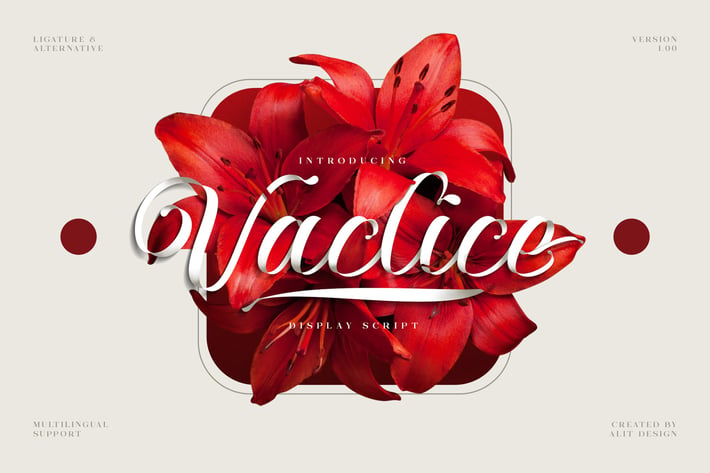
Vaclice Script Font
Vaclice Script Font is a very beautiful and unique signature script Font that comes with a very beautiful ligature surprise with different font characters so it is perfect for your design needs such as printed quotes, invitation cards, social media, product packaging, your website and more!
A-Z Character Set
Numerals & Punctuations (OpenType Standard)
Stylistic Alternates
Ligatures